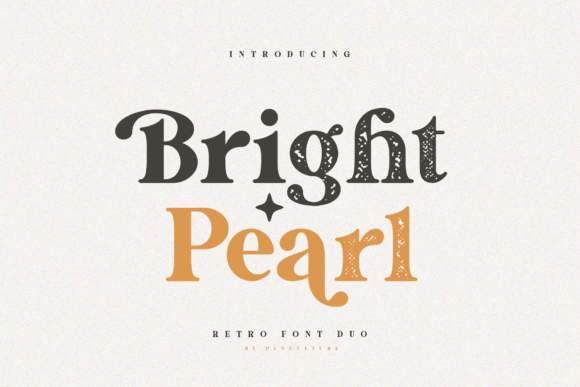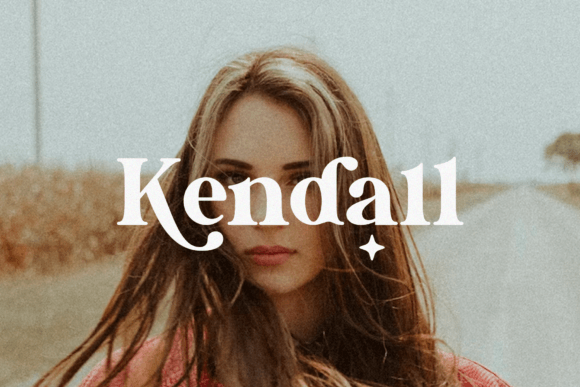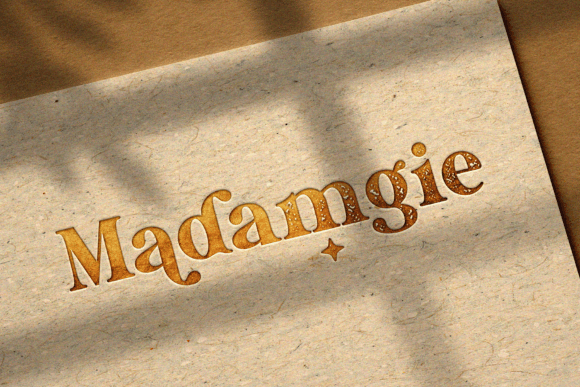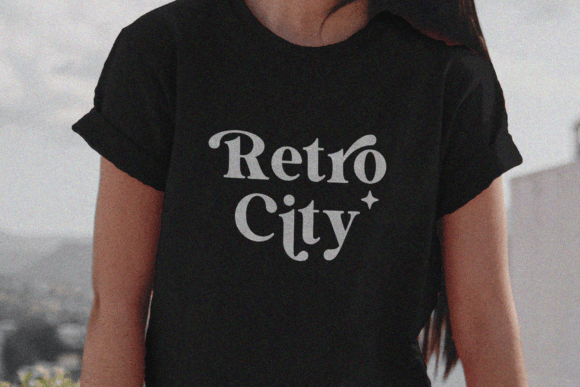
Bright Pearl Font
About the Bright Pearl Font
Add a touch of class to your work with the Bright Pearl Font, a truly exceptional typeface. Bright Pearl is a retro serif font that come with 2 version, clean and rough. This font also has an outstanding stylistic alternate that you can use for any kind of design project such as branding, book cover, print on demand, cricut and many others.
Bright Pearl’s retro style with its clean and rough variations excels in display applications such as headlines, logos, and short-form text on packaging or posters. Its stylistic alternates add visual interest, perfect for eye-catching branding elements. However, its limited x-height and strong serifs make it less suitable for body text or UI elements requiring high readability.
The font possesses a bold yet playful personality. It’s ideal for brands aiming for a vintage aesthetic with a touch of modern energy—think retro fashion, craft breweries, or vintage-inspired products.
For effective pairings, consider pairing the “clean” version with a minimalist sans-serif like Montserrat for a balanced contrast, or use the “rough” version alongside a script font like Great Vibes for a more textured, vintage feel. A geometric sans-serif like Bebas Neue could also create a strong visual contrast when used for secondary text elements.
Bright Pearl Font Usage Examples
Bright Pearl Font Example